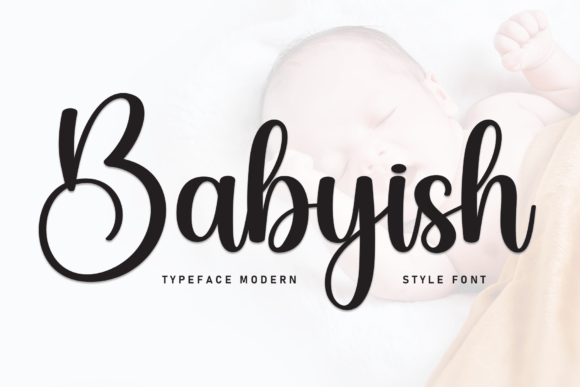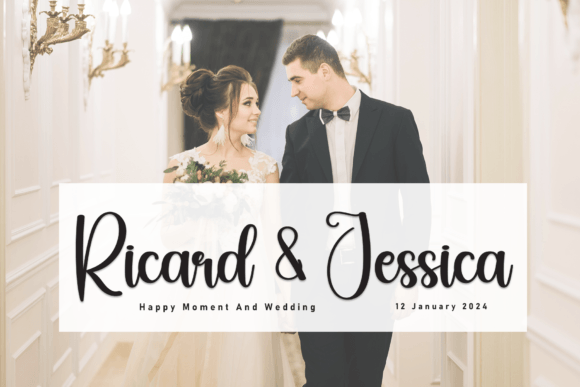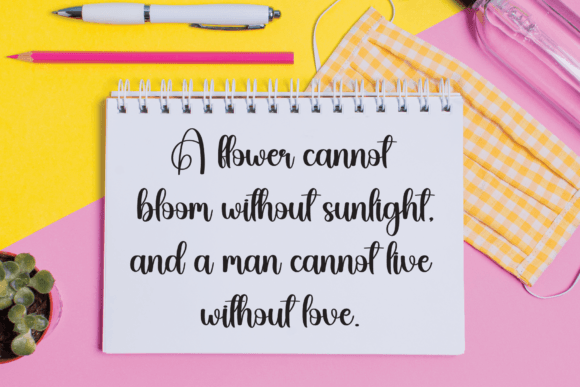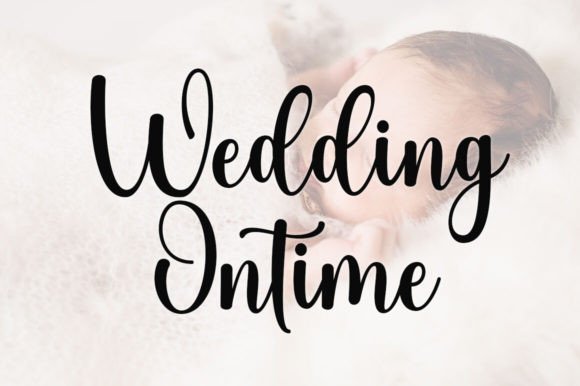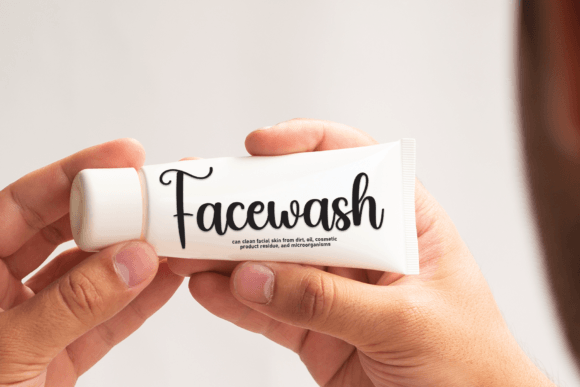
Babyish Font: An Elegant Script for Chic Branding & Cricut Crafts
About the Babyish Font
The Babyish Font is here to transform your projects with its distinctive character and style. Babyish is a sweet and cursive handwritten font. This gentle font will look gorgeous on a variety of design ideas. It will add a joyful and romantic touch to each of your projects!
Its playful, informal style makes it ideal for projects requiring a touch of whimsy, such as children’s books, invitations to celebratory events, or branding for businesses focused on sweetness and charm. It works particularly well in short phrases, headings, and logos. However, its cursive nature and varying stroke weights make it unsuitable for body text or extended reading; legibility suffers in smaller sizes or within dense blocks of text. Avoid using it in UI design or situations requiring high readability.
Pairing Babyish with a clean sans-serif font like Open Sans for body copy creates a pleasing contrast. For a more sophisticated look, consider pairing it with a delicate serif like Lora. If a bolder contrast is desired, a geometric sans-serif such as Futura can provide a strong counterpoint to its organic feel.
Babyish possesses a distinctly friendly and approachable personality. Its gentle curves and informal letterforms convey warmth and a sense of lightheartedness.